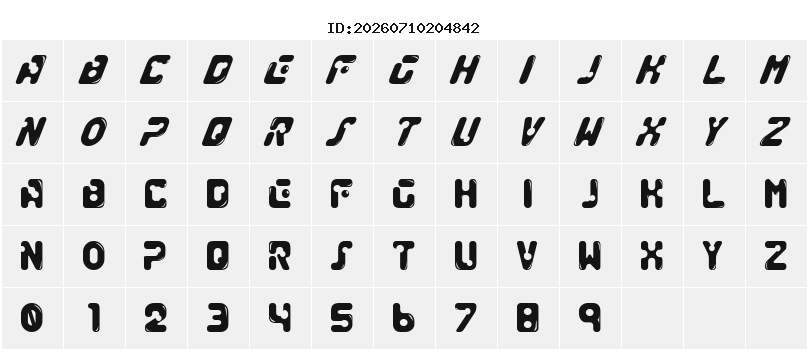
• Font Name: GENOCIDE_RMX
• Full Font Name: GENOCIDE_RMX
About GENOCIDE_RMX.ttf
GENOCIDE_RMX.ttf is a modern, elegant sans-serif font designed for ultimate readability and visual harmony. Perfect for branding, headlines, web design, and print materials.